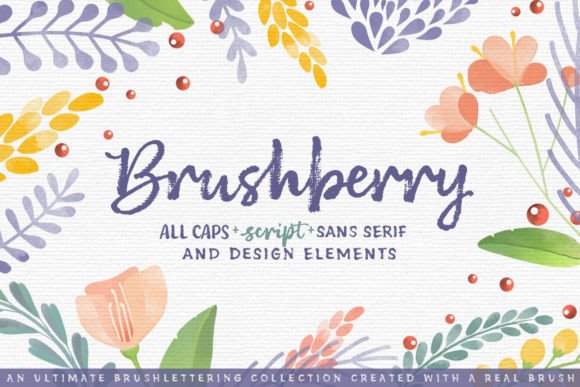
Introducing Brushberry Font, a captivating script font created by My Creative Land. Immerse yourself in the world of elegance as you explore the fluid lines and graceful curves of this beautiful handwritten font. With its stunning visual impact, Brushberry is the perfect choice for those seeking to elevate their designs and leave a lasting impression.
Wedding invitations are a cornerstone of any wedding, and Brushberry Font brings an added touch of sophistication to these special moments. Imagine your guests' delight as they receive an invitation adorned with the exquisite strokes of Brushberry. The combination of elegance and uniqueness will set the tone for an unforgettable celebration, making your wedding truly one-of-a-kind.
Branding materials play a crucial role in establishing a strong and memorable identity for businesses. With Brushberry Font, you can effortlessly convey a sense of style and professionalism. The fluidity of the script and the intricate details of each letter will captivate your audience, leaving them with a lasting impression of your brand. Whether it's your logo, packaging, or business cards, Brushberry Font will elevate your brand to new heights.
In this digital age, social media has become a powerful platform for self-expression. Stand out from the crowd and make your posts eye-catching with Brushberry Font. Its unique charm and artistic flair will instantly capture the attention of your followers, making your content impossible to scroll past. From inspirational quotes to promotional graphics, Brushberry Font will add that extra spark of creativity to your social media presence.
But Brushberry Font is not just about aesthetics; it's also designed to be user-friendly. With its easy-to-read characters and smooth flow, it ensures a seamless reading experience for your audience. No more squinting or deciphering complicated fonts – Brushberry Font effortlessly combines elegance with legibility.